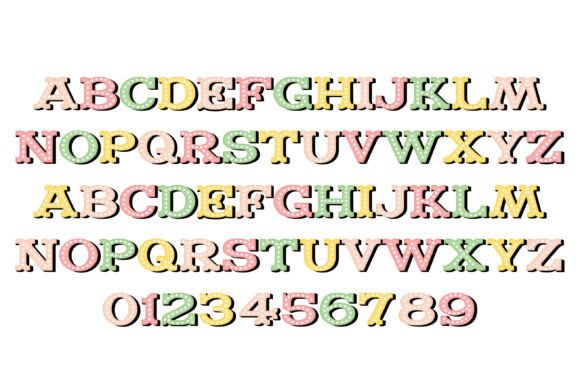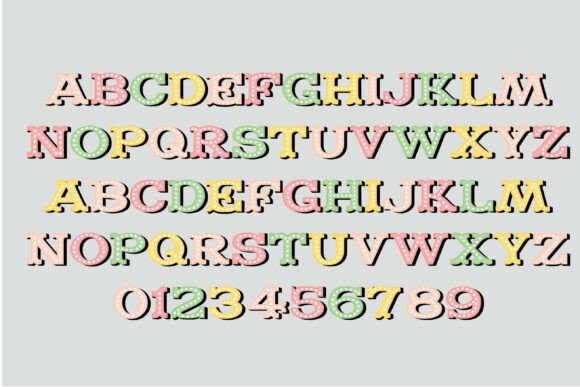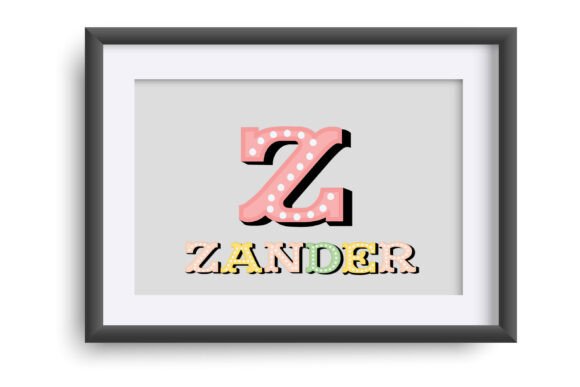
Introduction to Circus Baby Font
Step right up to the charming elegance of Circus Baby, a full-color SVG font that blends vintage marquee style with a soft, modern palette.
This typeface features classic slab-serif letterforms decorated with a rhythmic pattern of white β€œlight bulb” dots and a clean black drop shadow for a professional 3D effect The sophisticated mix of peach, mint, and gold makes it a versatile choice for gender-neutral nursery branding, high-end circus-themed parties, boutique children’s apparel, and whimsical editorial headers.